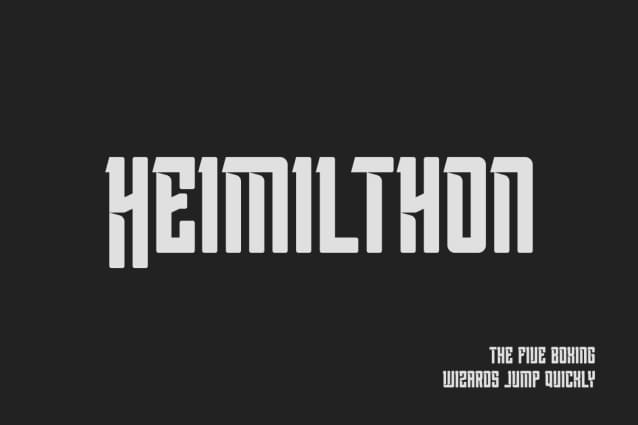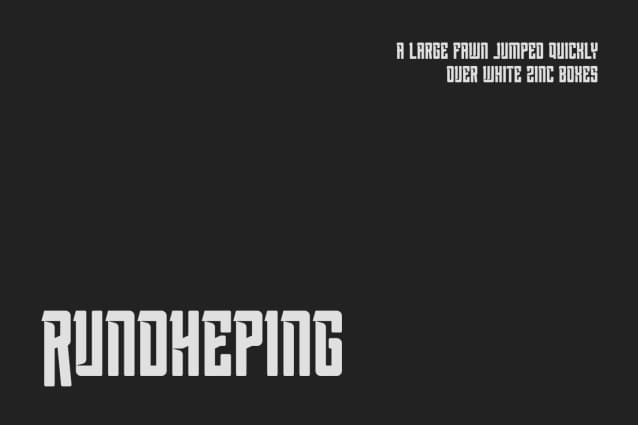
Reminor Font
Reminor Font – Modern Font is a bold and authentic display font. The font is suitable for all branding projects such as Logo, t-shirt printing, esports, etc.